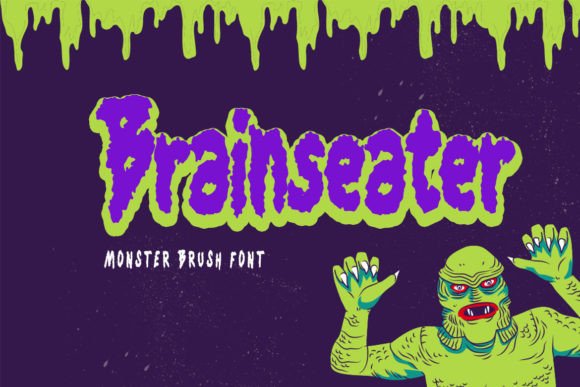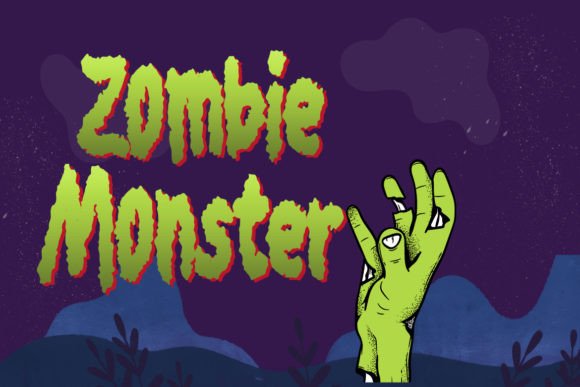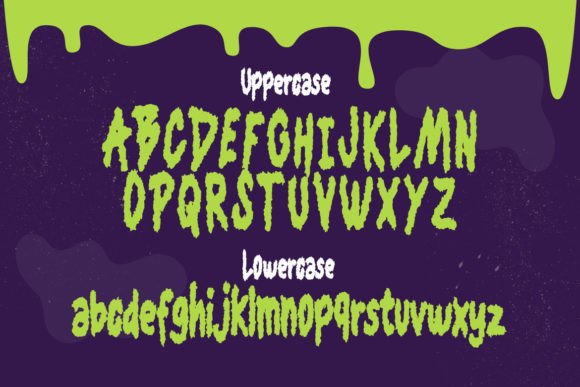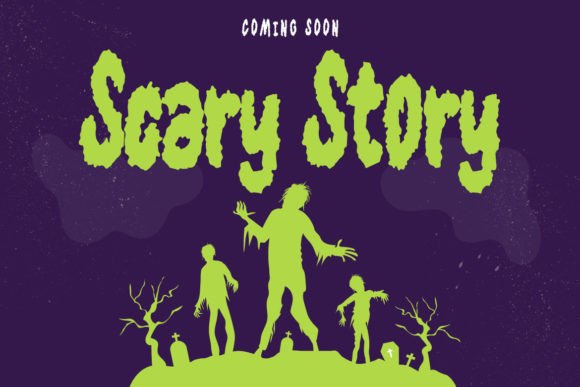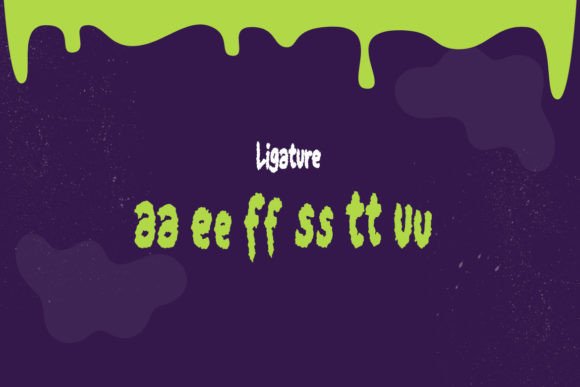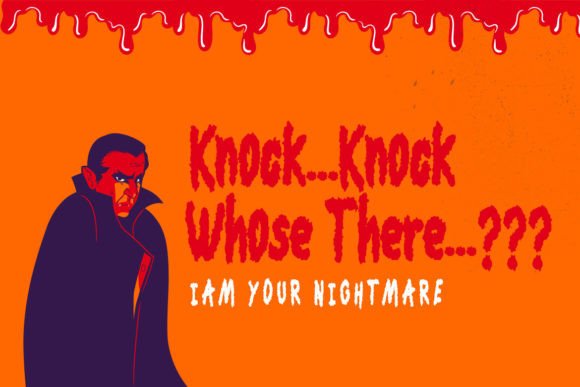
The Unbridled Energy of Brainseater Font: A Designer’s Dream
I’ll never forget the design project that led me to discover Brainseater Font. I was working on a bold, edgy branding campaign for a new tattoo studio, and I was struggling to find the perfect font to capture their rebellious spirit. That’s when I stumbled upon Brainseater, and it was love at first sight! 💥 This monstrous and edgy brush font is a beastly creation that exudes boldness and playfulness, making it perfect for designs that demand a touch of the unconventional.
- 💥 **Unbridled energy**: Brainseater’s jagged and irregular letterforms evoke a sense of unpredictability and untamed energy, making it perfect for designs that need a bold statement.
- 🎨 **Thick brush strokes**: The font’s thick, expressive brush strokes add a touch of playfulness and whimsy to any design.
- 🔍 **PUA encoded**: Brainseater is PUA encoded, which means you can access all of the glyphs and swashes with ease, giving you endless creative possibilities.
- 👍 **Easy to use**: Despite its edgy personality, Brainseater is surprisingly easy to use, even for designers who are new to working with unconventional fonts.
- ⚠️ **Limited use cases**: Brainseater’s bold personality may not be suitable for every design project. It’s best used for titles, headings, or emphasis text.
- 🤔 **Kerning issues**: As with any font, you may need to adjust kerning to get the best results, especially when using the font at smaller sizes.
Brainseater was designed by a creative team that wanted to create a font that embodied the spirit of rebellion and playfulness. Inspired by the raw energy of street art and graffiti, Brainseater’s jagged and irregular letterforms are meant to evoke a sense of unpredictability and untamed energy. Whether you’re a designer, crafter, or creative hobbyist, Brainseater is the perfect font for your next bold project.
Q: What is PUA encoding, and how does it benefit Brainseater?
A: PUA (Private Use Area) encoding allows designers to access a wide range of glyphs and swashes, making it easier to create unique and creative designs. Brainseater’s PUA encoding means you can access all of the font’s features with ease.
Q: Is Brainseater suitable for body text?
A: No, Brainseater is best used for titles, headings, or emphasis text. Its bold personality and thick brush strokes make it less suitable for body text.